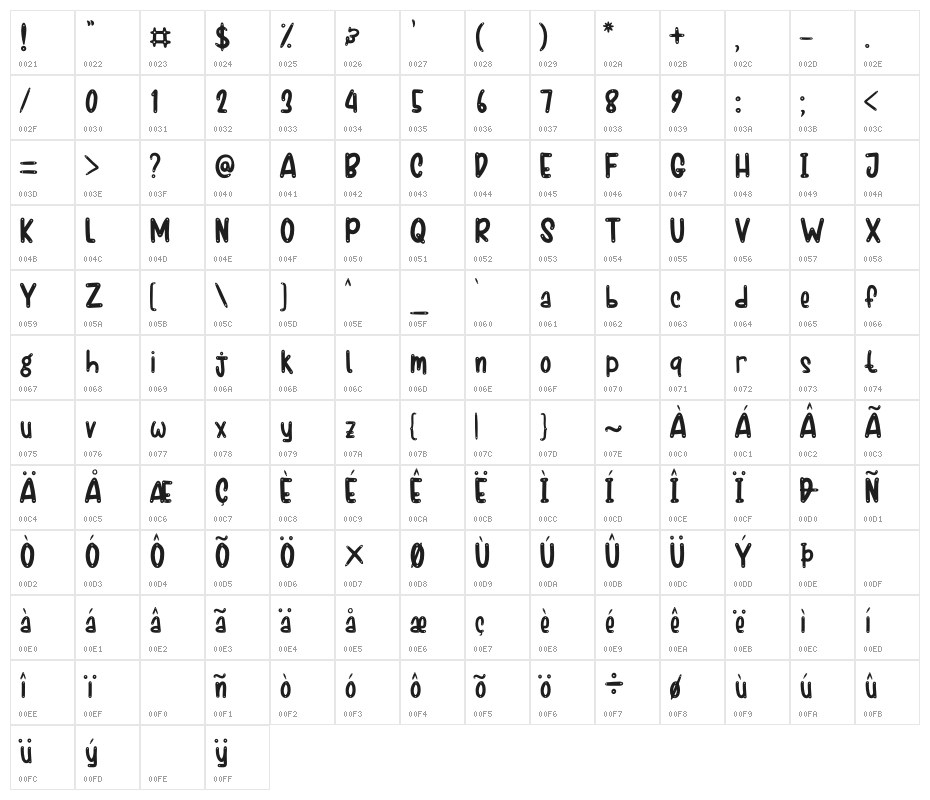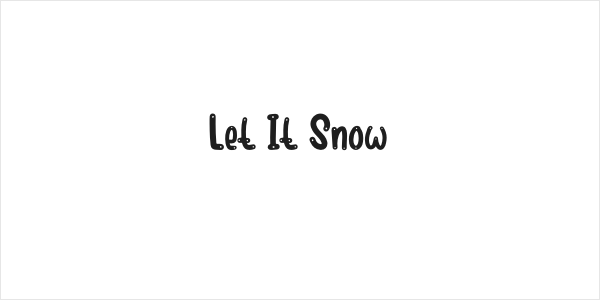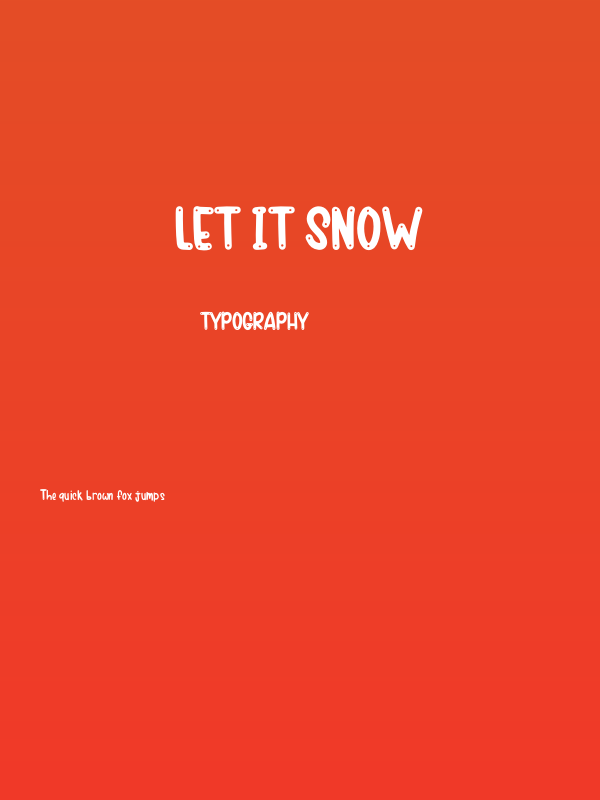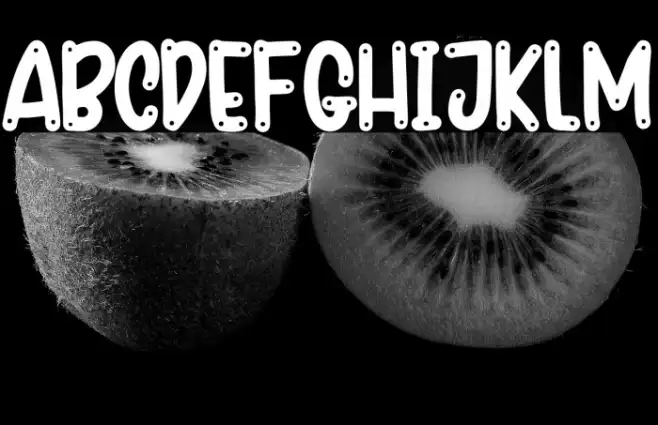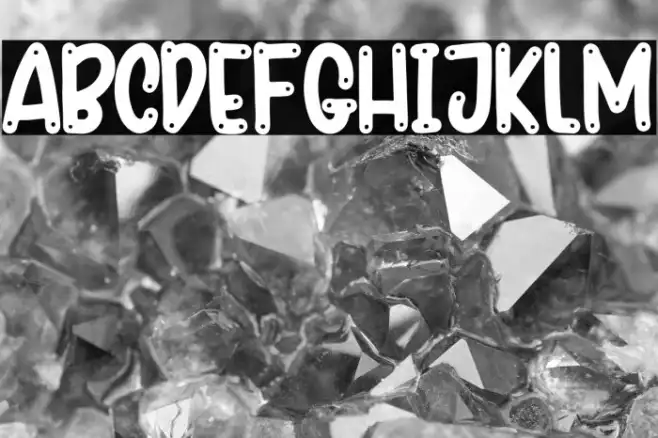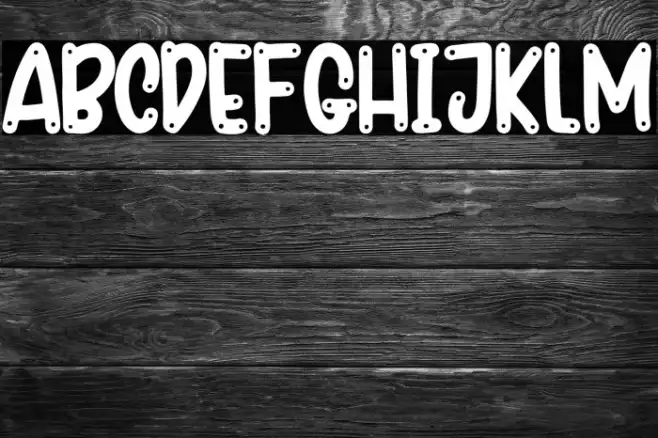
Let It Snow Font
Let It Snow Description
This playful and whimsical font features rounded, bold characters with a hand-drawn aesthetic. Each letter is adorned with small, circular embellishments that resemble snowflakes, adding a festive and cheerful touch. The font maintains a consistent weight throughout, providing a sense of uniformity while still embracing a casual, fun style. The characters are slightly condensed, allowing for efficient use of space without compromising readability. The numbers and special characters follow the same design principles, ensuring a cohesive look across all elements. This font is perfect for projects that aim to convey joy, creativity, and a sense of playfulness.
| Proposed Projects | Ideal for holiday cards, children's book covers, festive posters, and playful branding materials. |